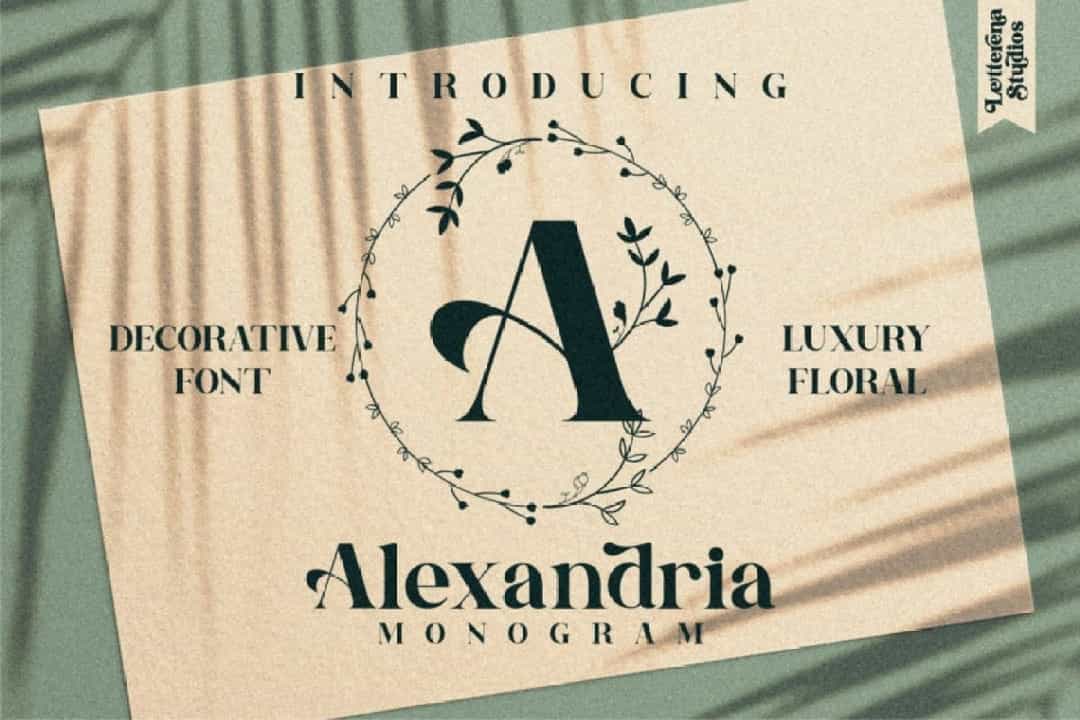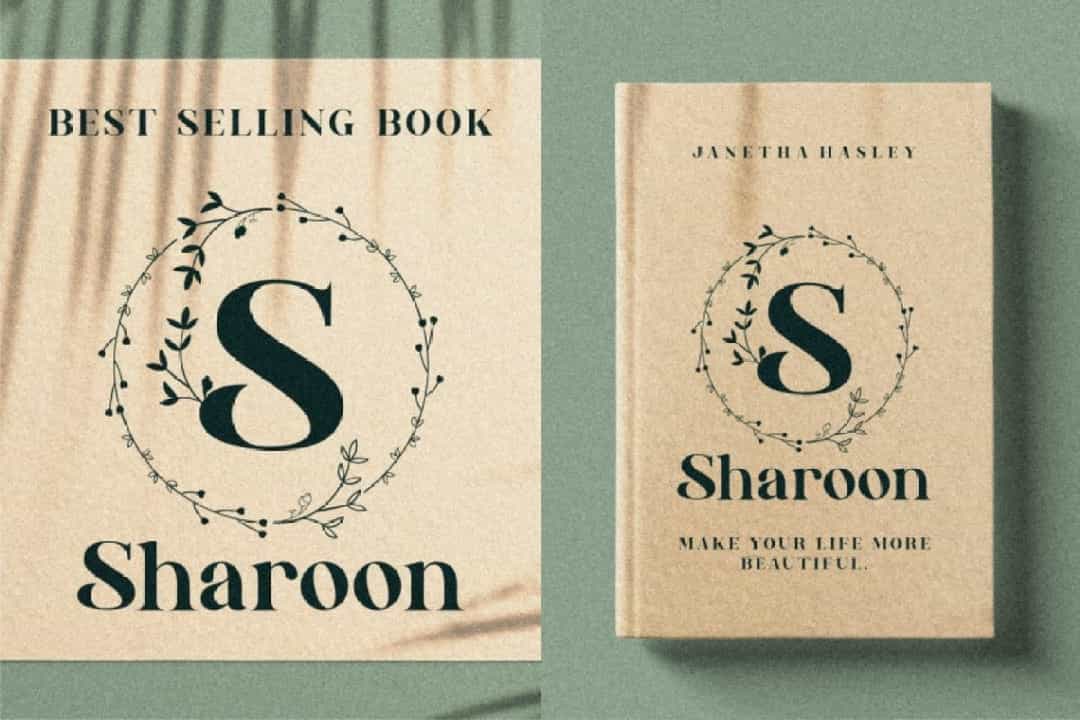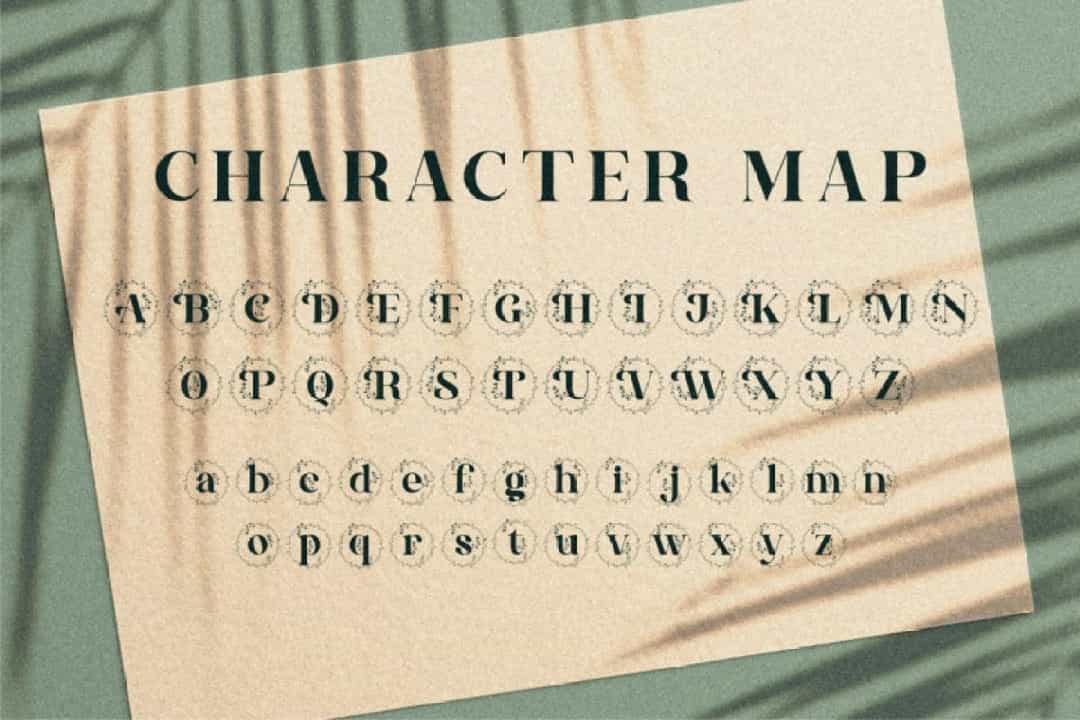
Alexandria Monogram Font
Discover Alexandria Monogram Font, part of the   Serif Display Basic Decorative Personal collection—a versatile and unique font perfect for adding a personal touch to your projects. Download it for free and enjoy crafting designs with style, from invitations to social media posts. This font is available exclusively for personal use, giving you the freedom to create without limits. Unlock your creativity with Alexandria Monogram Font today!
The font is named as Alexandria Monogram and is a decorative font with leaves as its main design. You will be fascinated by its design and apply it in making beautiful wedding invitations, stationery work, shares on social media platforms, and greeting cards.